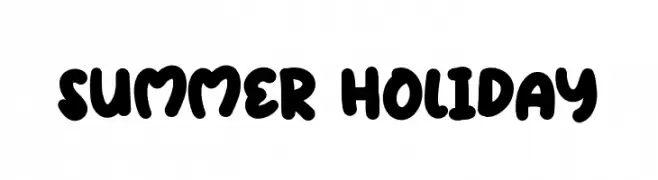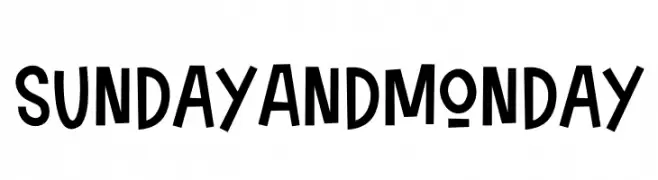
• Shining Monday
( Fonts by Subectype & Orenari )
A bold, playful handwritten font with rounded strokes and a lively vibe.
• Summer Holiday
( Fonts by Andi Moz )
A playful, bold, and rounded font with a whimsical style.
• Summer Holiday - Personal Use
( Fonts by Letterafa Studio )
A playful, bold handwritten font with a lively and friendly style.
• Monday coldness free vertion Regular
( Fonts by Alit Design )
A modern serif font with artistic flair and balanced elegance.
• Sunday And Monday
( Fonts by Letter Art Studio )
A playful, bold font with a hand-drawn, casual style.
• Christmas Style - Personal Use
A festive, cursive font with elegant, flowing lines, perfect for holiday designs.
• Christmas Bright
A festive, cursive font with elegant loops and swirls, perfect for holiday themes.
• Satherday - Personal Use
A playful, flowing script font with elegant curves and a modern touch.
• Christmas Theme - Personal Use
A festive and whimsical script font perfect for holiday themes.
• Snow Bells
A playful, holiday-themed font with characters in ornament-like circles.